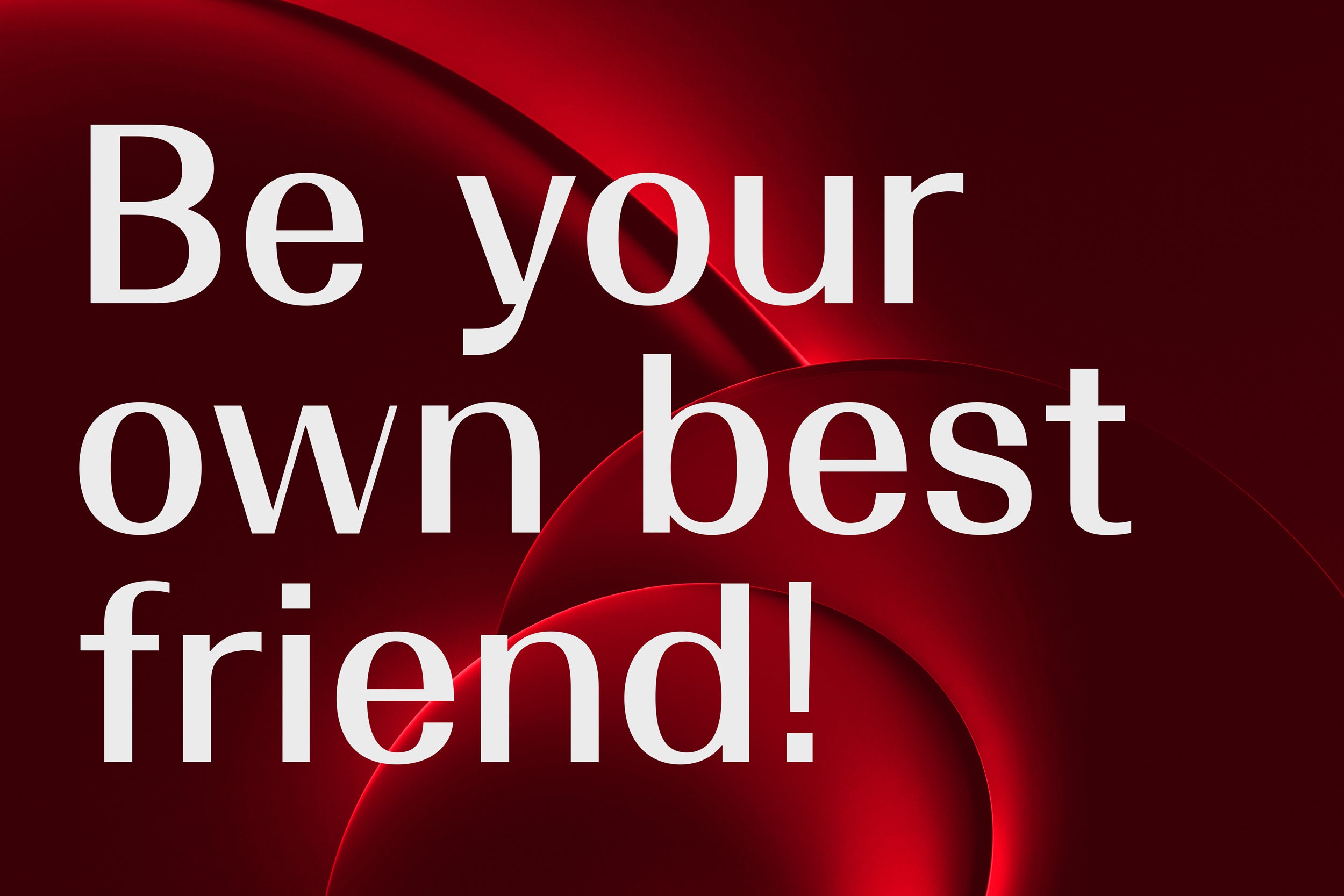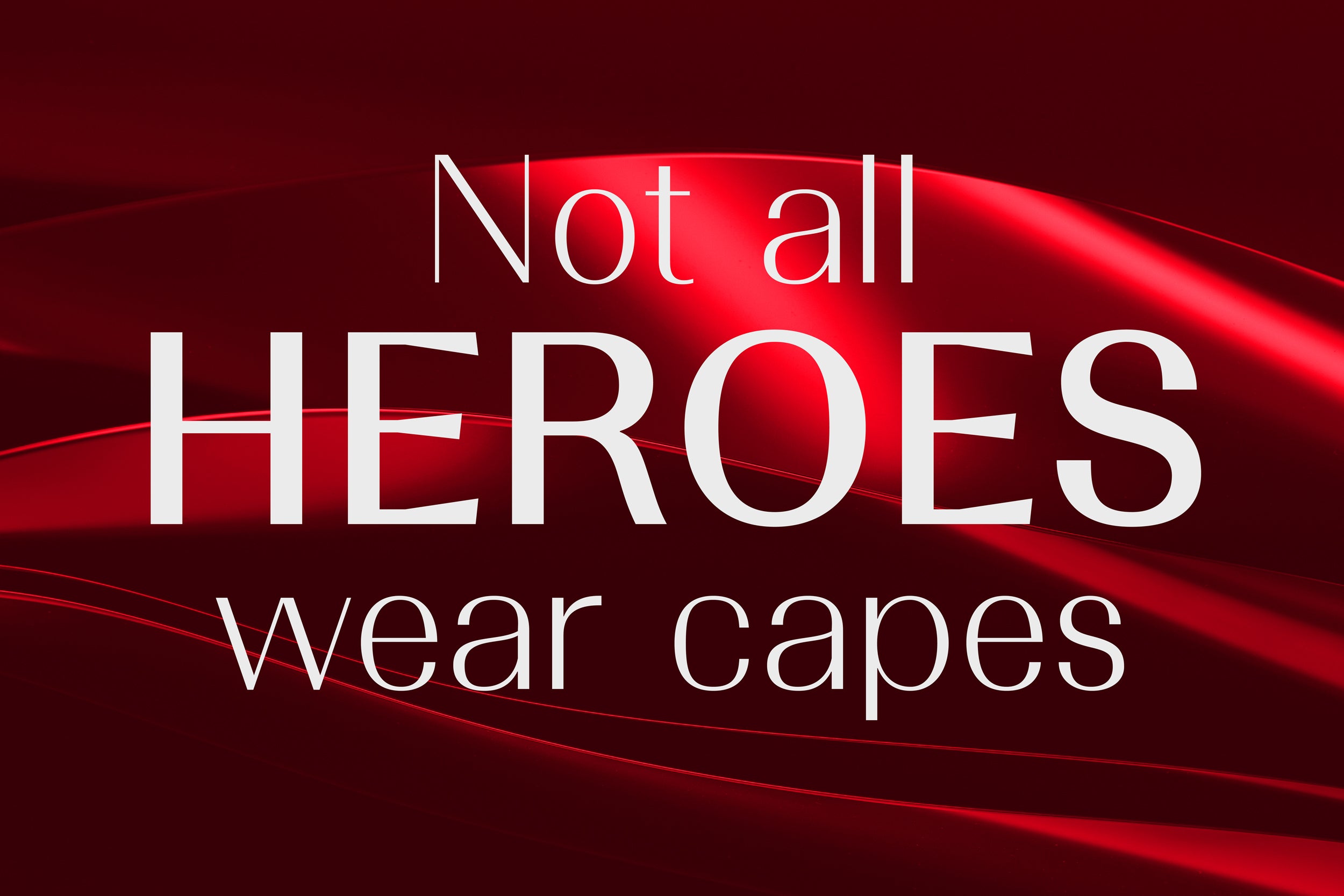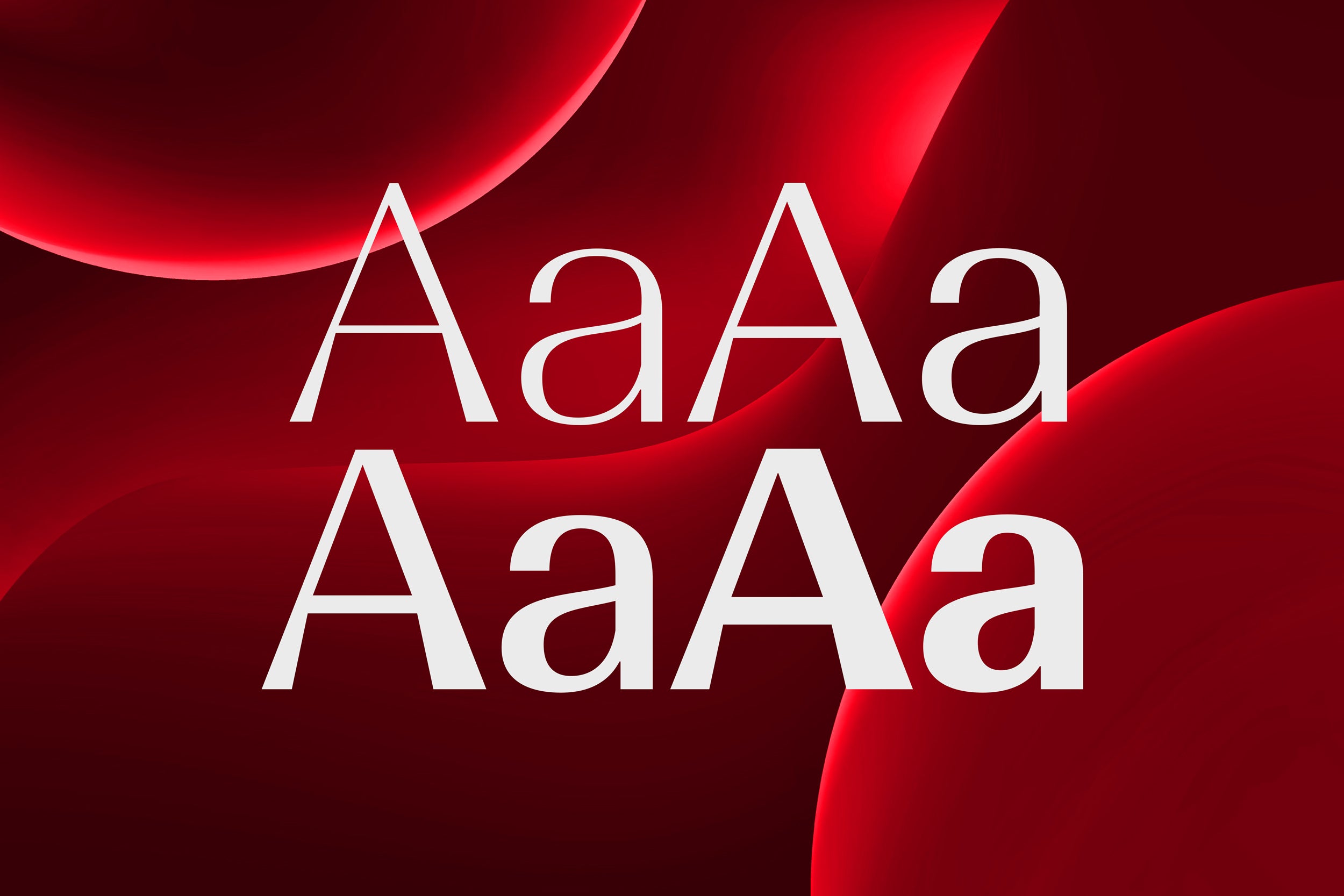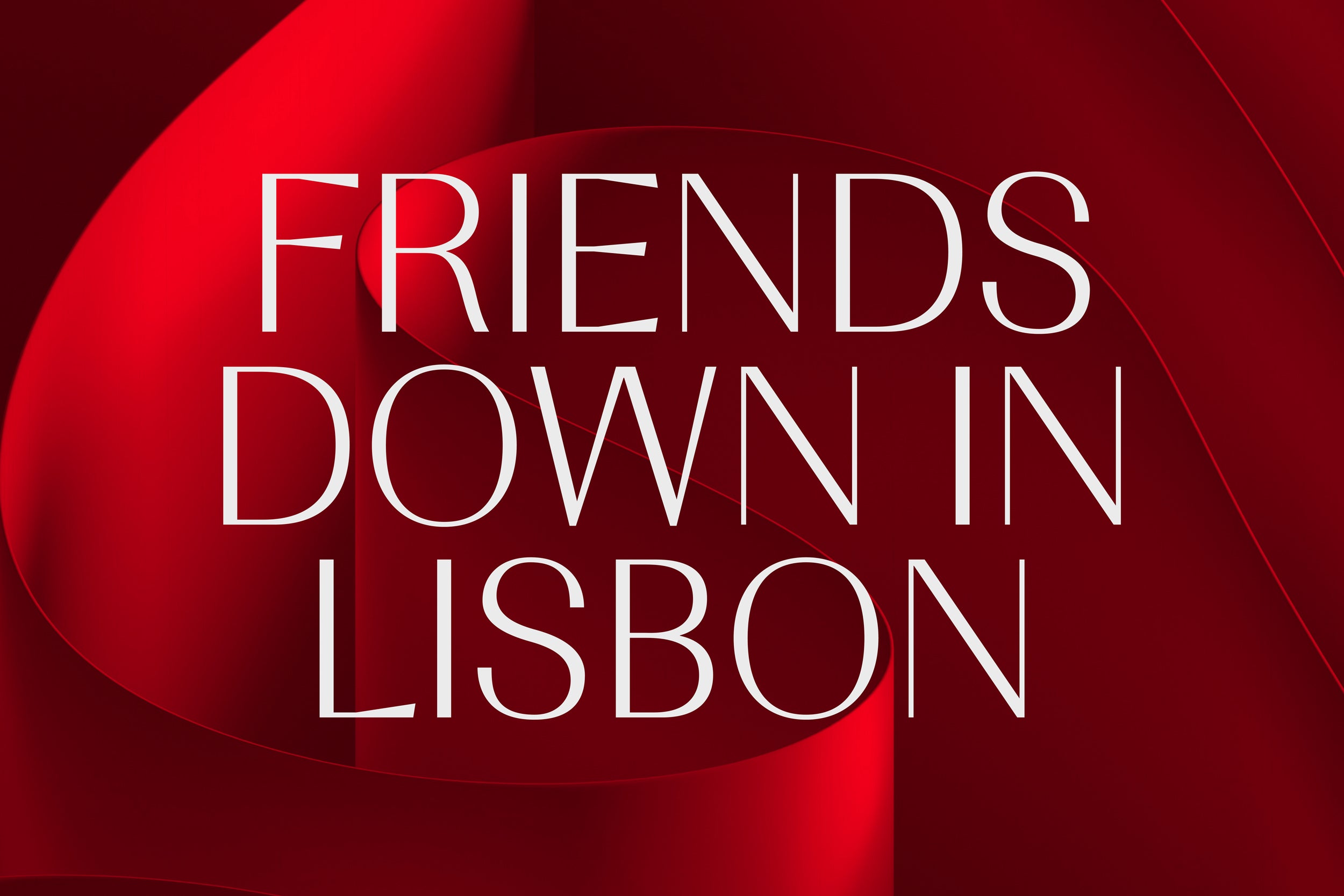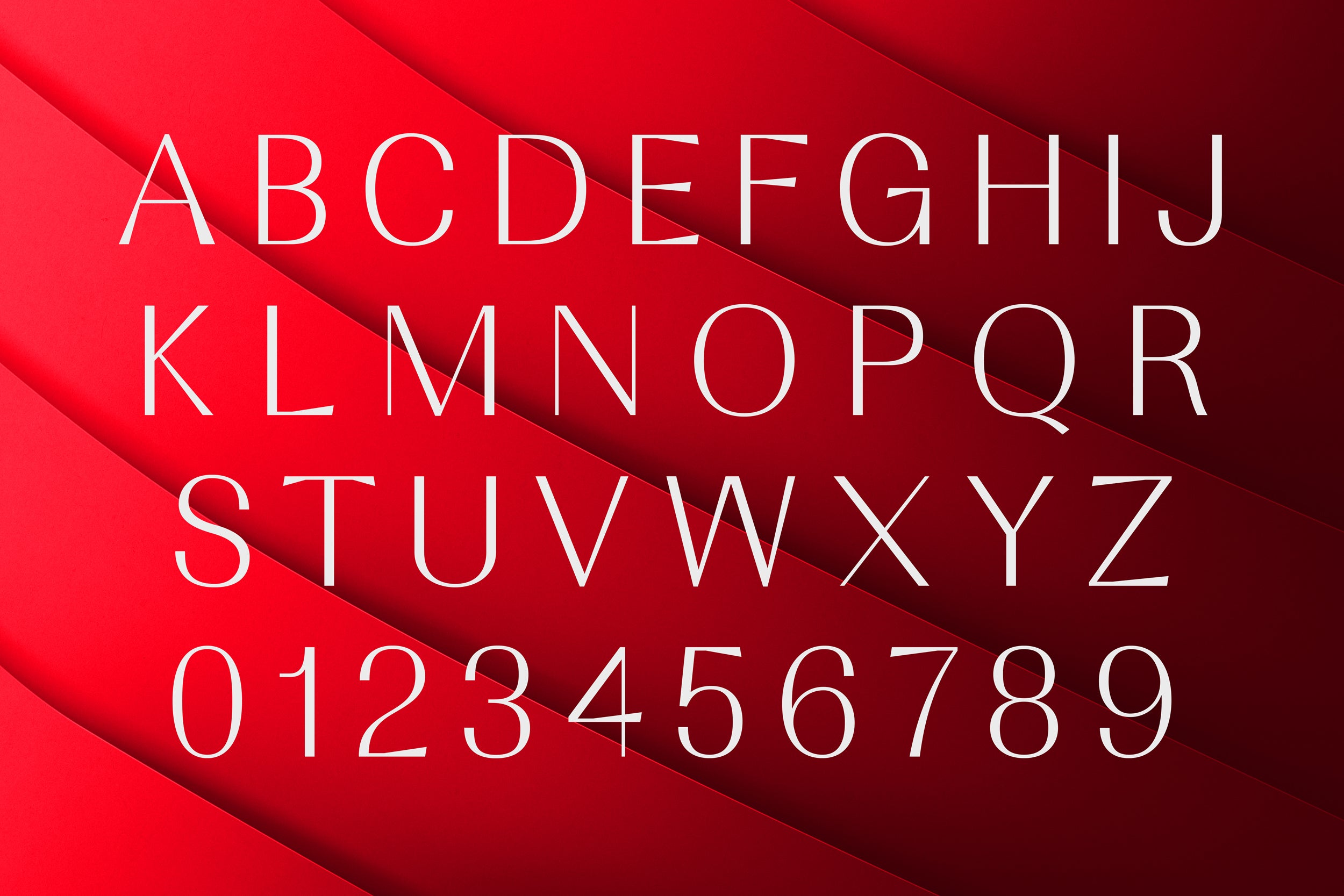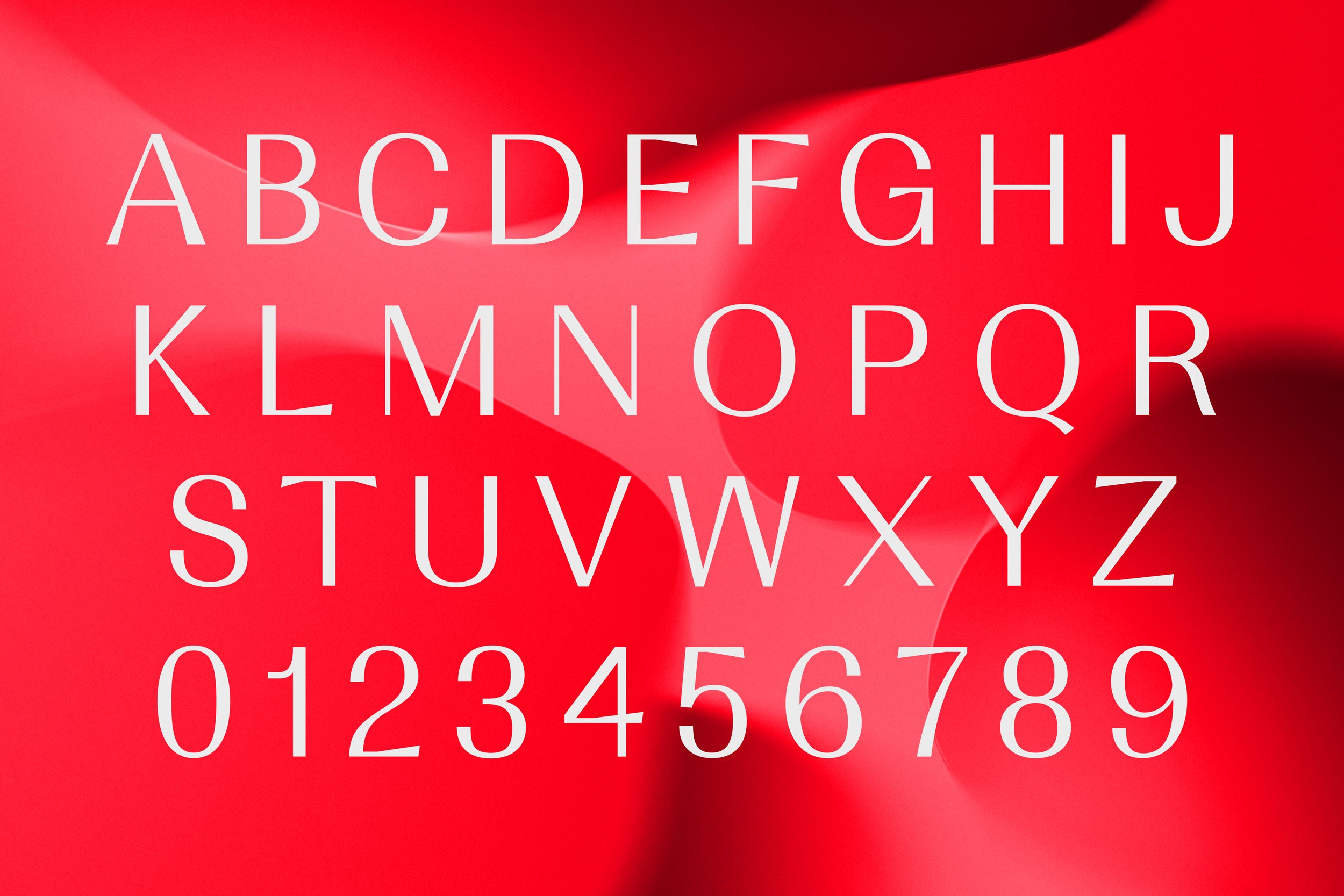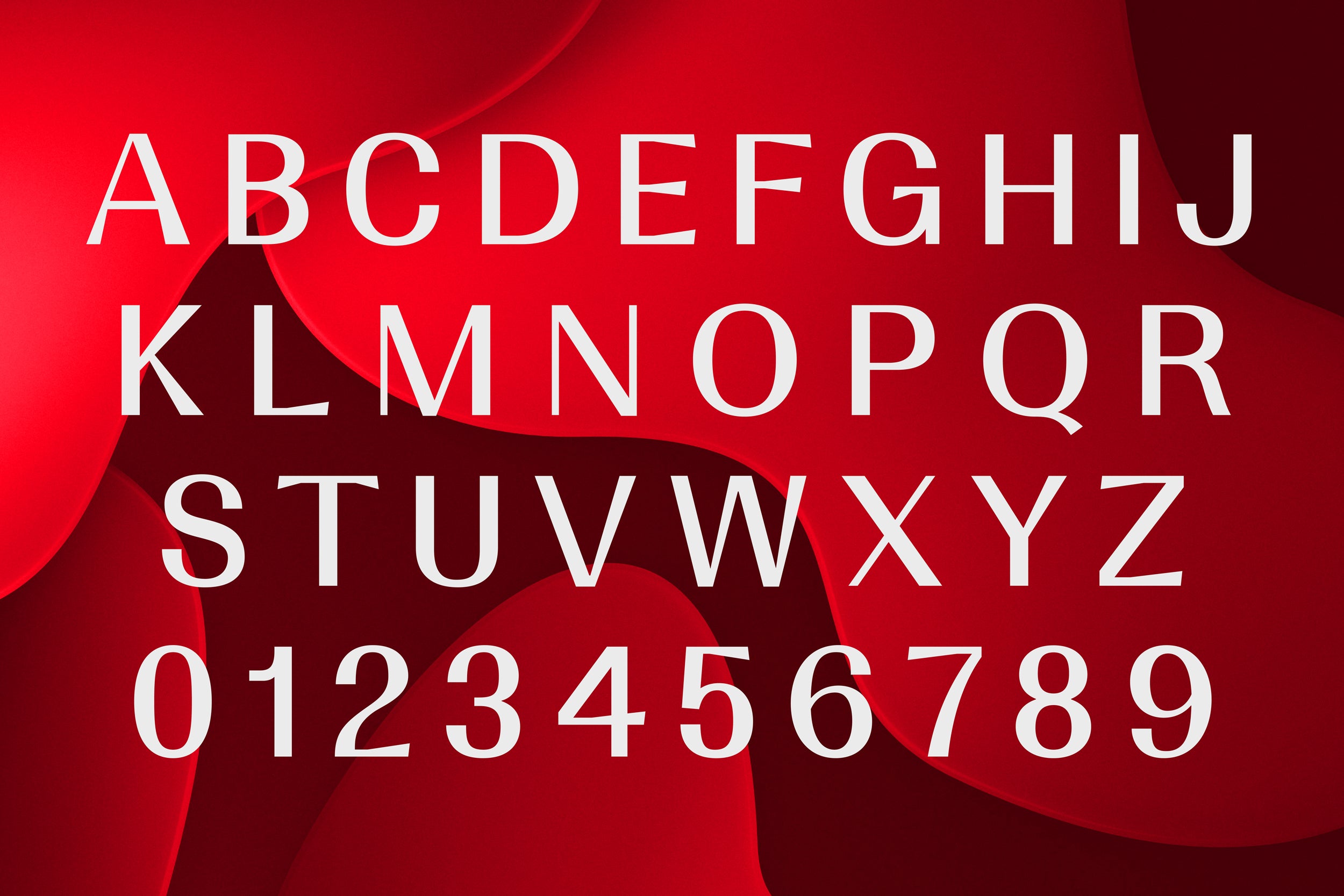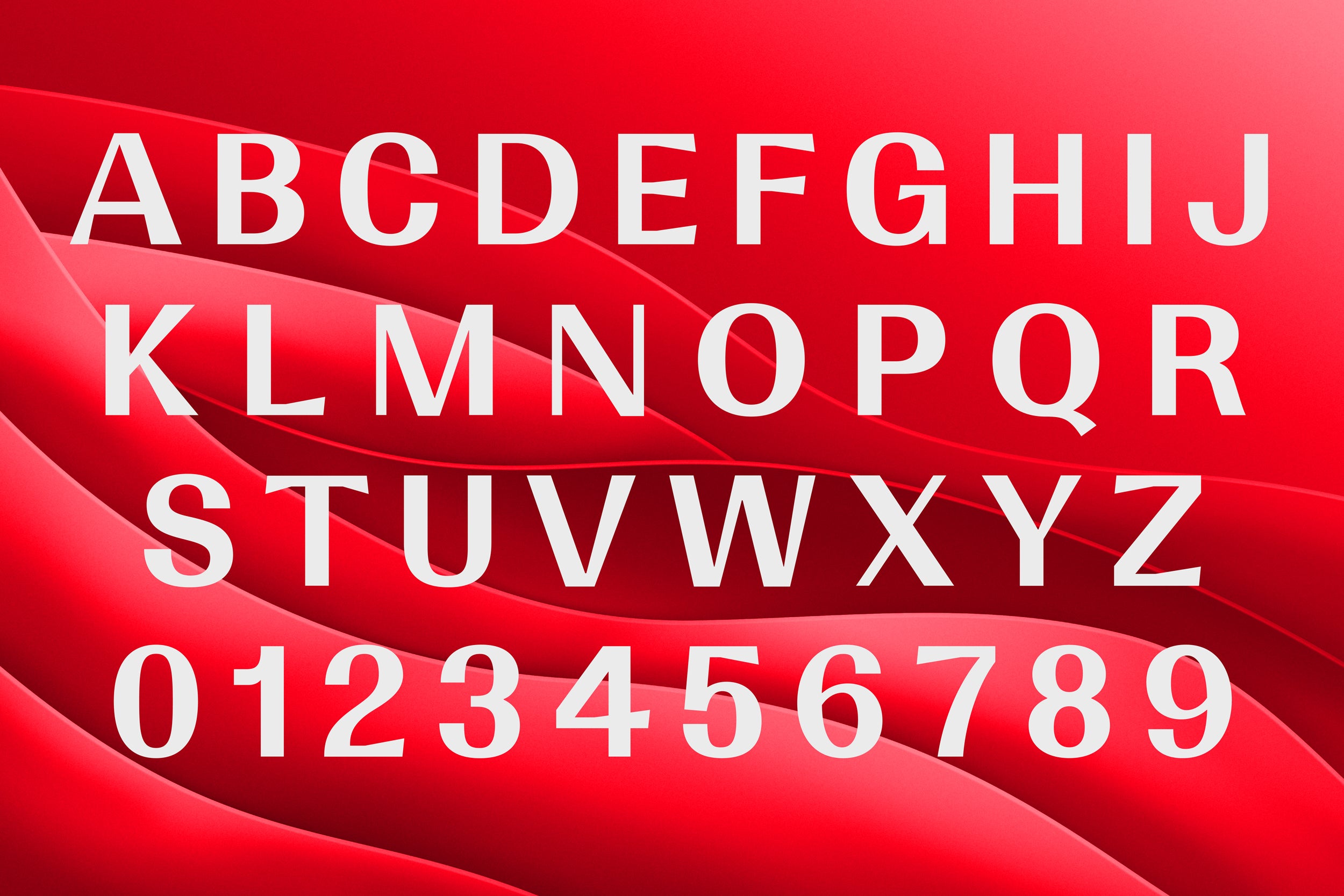
Sabino
Sabino is a contemporary sans serif that balances quiet confidence with refined character. Its design is rooted in clean geometry but softened by subtle humanist decisions: gently tapered strokes, open apertures, and carefully judged proportions that give the typeface a calm, modern rhythm. Sabino feels considered rather than constructed — elegant without being fragile, neutral without being anonymous.
Across its weights, Sabino maintains exceptional consistency and colour, making it equally comfortable in text and display settings. The lighter styles are airy and articulate, ideal for editorial layouts, cultural branding, and premium digital experiences, while the heavier weights introduce presence and authority without losing clarity. Distinctive details — such as the sculpted capital A, the expressive Q tail, and the fluid ampersand — add personality where it matters most, giving designers subtle moments of flair without disrupting readability.
Designed for versatility, Sabino excels in branding, editorial, UI, packaging, and wayfinding contexts where clarity and tone are equally important. It pairs naturally with both expressive serifs and utilitarian grotesks, making it a reliable workhorse for modern identity systems. Whether used quietly in long-form text or confidently at large sizes, Sabino delivers a refined, contemporary voice that feels purposeful, polished, and timeless.